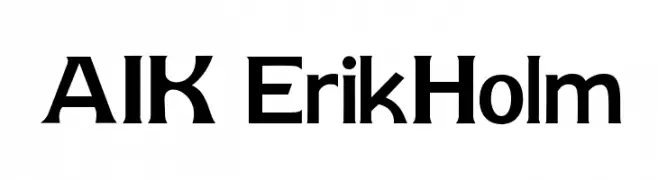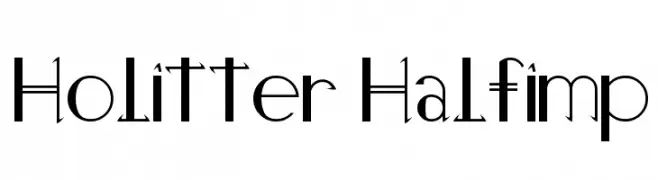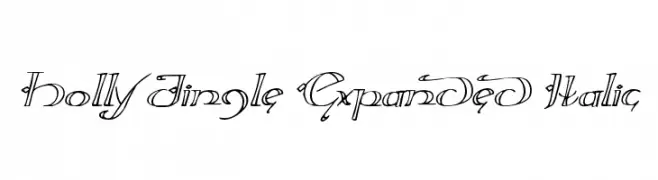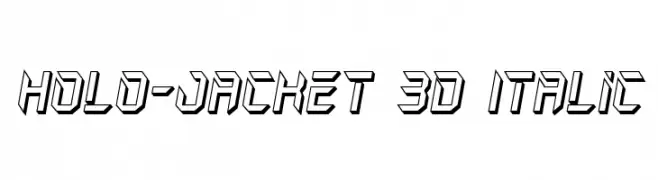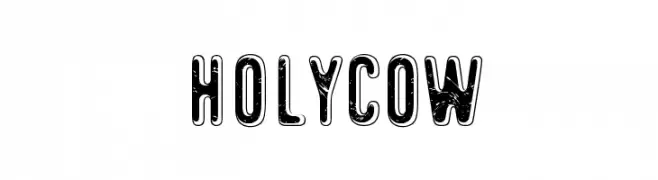
• Head like a hole
A distressed, hand-drawn font with a grungy and edgy style.
• As long as I can hold my breath
A hand-drawn, playful font with an organic and artistic style.
• Can you ever see a whole circle
A hand-drawn, rough font with a dynamic and energetic feel, reminiscent of graffiti.
• Holy Cow
A bold, distressed font with a vintage, handcrafted style.
• Holo-Jacket 3D Italic
A bold, 3D italic font with a futuristic and angular design.
• AIK-ErikHolm
A bold, modern font with clean lines and a strong presence.
• Holitter Halfimp
A modern, geometric font with sharp angles and elegant curves.
• Holly Jingle Expanded Italic
A whimsical, decorative font with expanded, italicized characters and high contrast strokes.
• Holly Jingle Solid Condensed
An ornate and decorative font with intricate swirls and flourishes.
• Holly Jingle Solid Expanded Italic
A decorative, bold, and italicized font with intricate curves and expanded width.